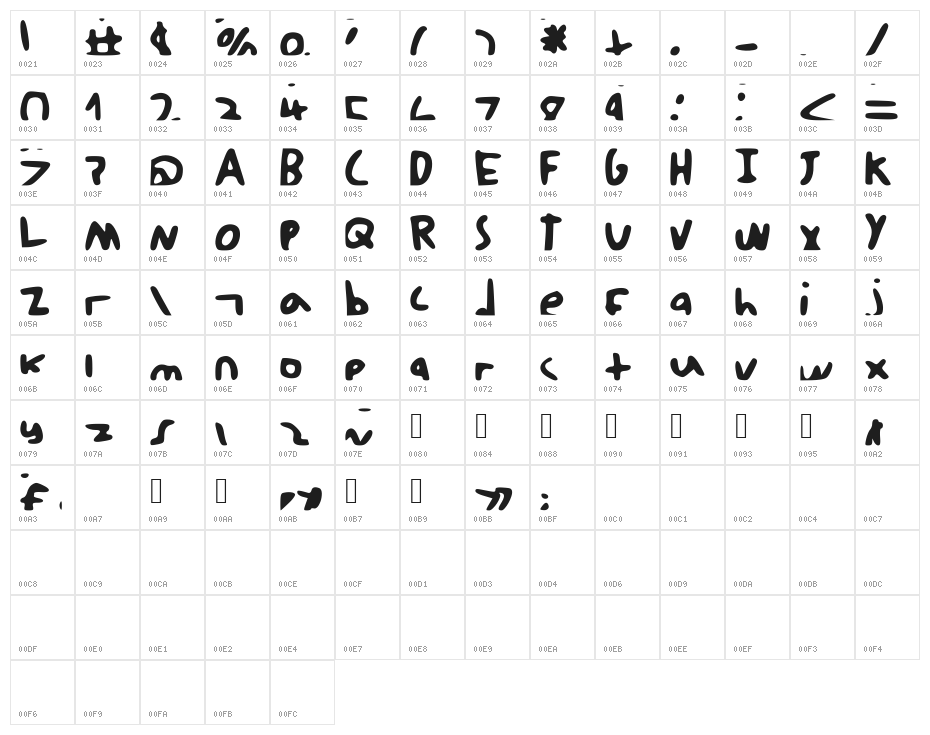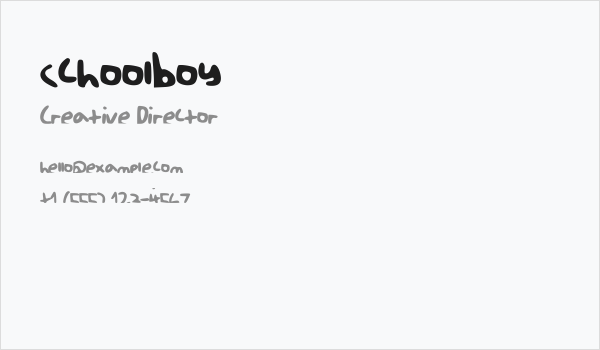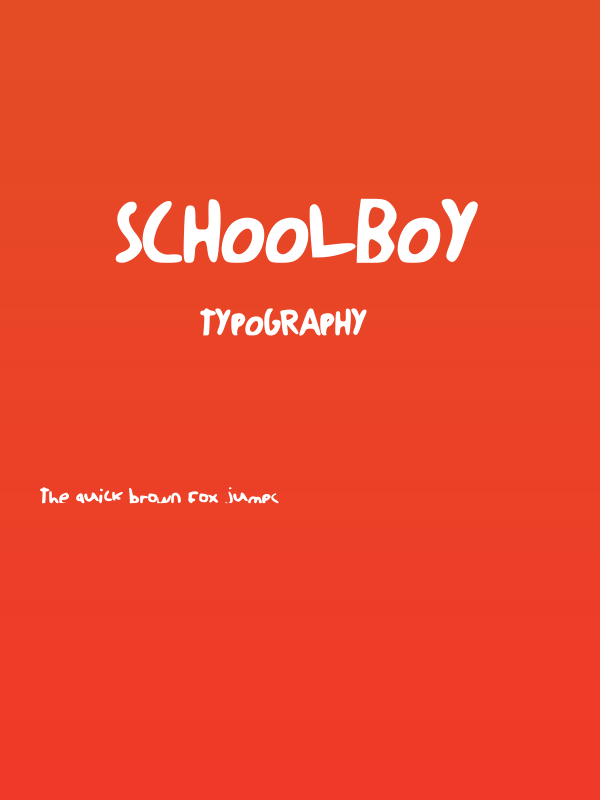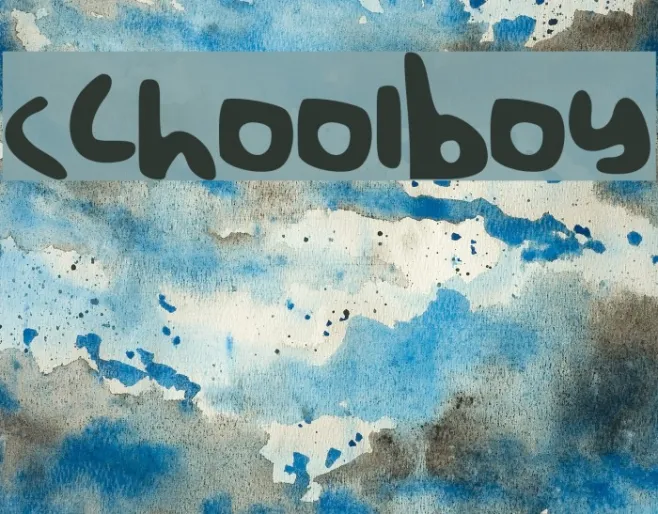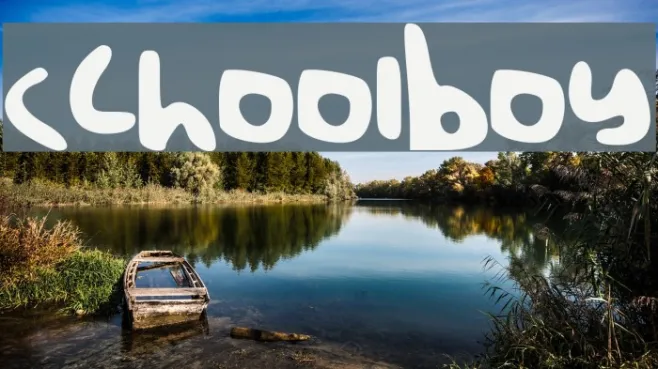
schoolboy Font
schoolboy Description
This playful and whimsical font features a hand-drawn style with irregular, rounded shapes that give it a youthful and energetic appearance. The letters are bold and slightly uneven, reminiscent of a child's handwriting, which adds to its charm and informal feel. The uppercase and lowercase letters maintain a consistent style, with a slight tilt and varying stroke widths that enhance its casual aesthetic. Numbers and special characters follow the same playful design, making this font versatile for creative projects. Its unique style is perfect for adding a fun and approachable touch to any design.
| Proposed Projects | Ideal for children's books, educational materials, playful branding, and creative posters. |